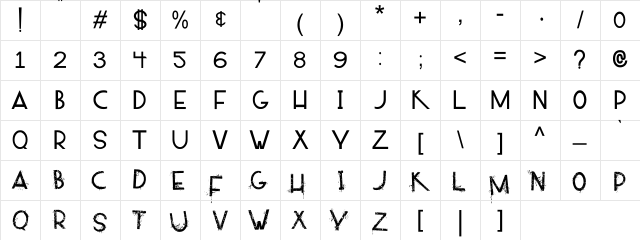
Complete ALPACA54 Regular glyph index. Displaying only characters natively supported by ALPACA54 Regular font.
ALPACA54 is a composed and adaptable typeface that performs quietly and consistently across a wide range of design contexts.